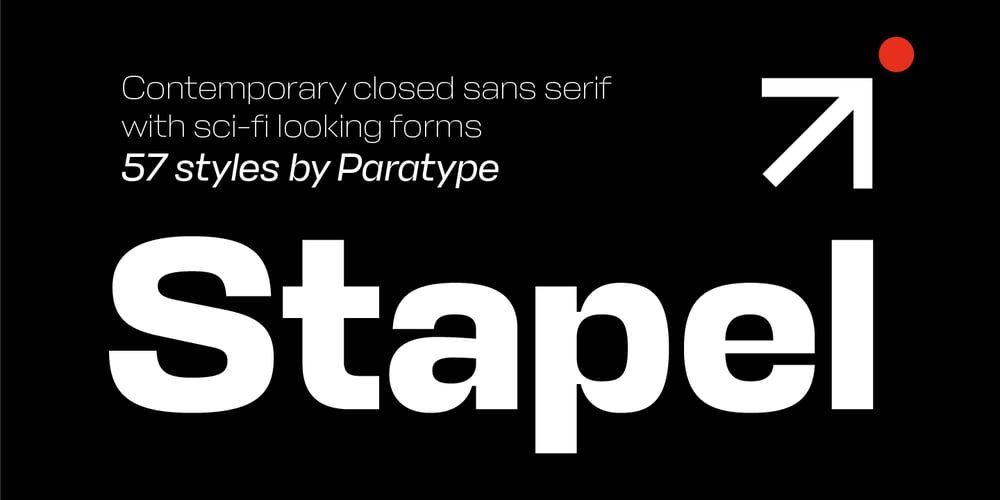
Stapel Font Family was designed by Alexander Lubovenko and published by ParaType. Stapel contains 61 styles and family package options. Stapel is a contemporary closed sans serif with sci-fi looking forms and eloquent, thin stroke joints. The superfamily consists of three subfamilies of different width: Normal, Narrow and Condensed. Each subfamily contains seven weights with corresponding true italics. Additionally, there are several extra wide bold styles. All these styles work perfectly in headings and short display texts. Another important subfamily is Stapel Text which includes upright and italic styles of lower contrast and more generous spacing. Text styles are great for body text in small and medium point sizes. Most styles include alternate characters, proportional and lining figures, math symbols, fractions, currency signs and case-dependent punctuation. A wide range of styles and typographic features makes Stapel ideal for use in brand identity, infographics and all kinds of designs related to technology, science, finance, politics or sports. Stapel was designed by Alexander Lubovenko and released by Paratype in 2020.